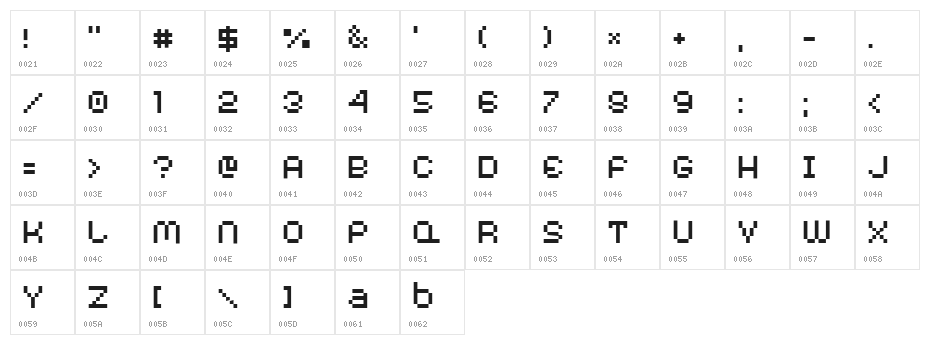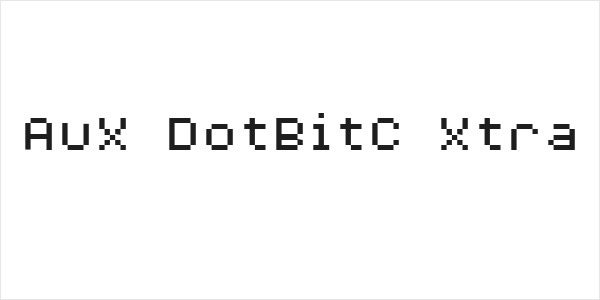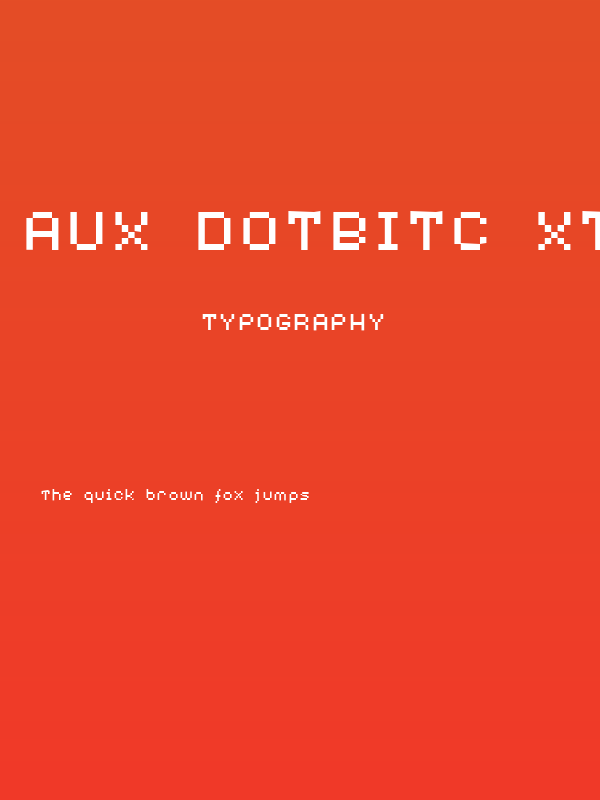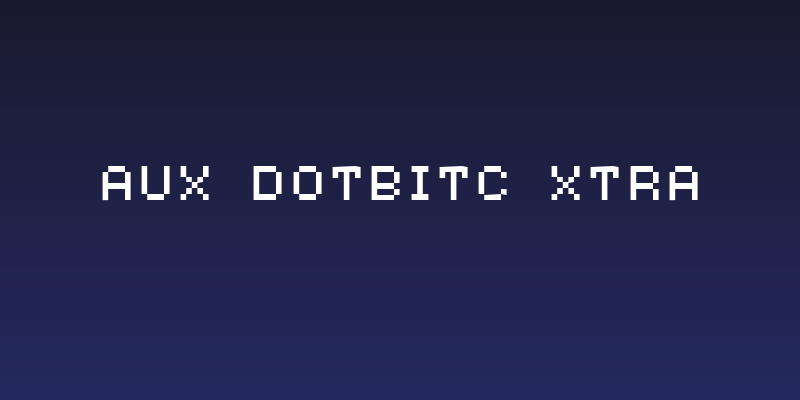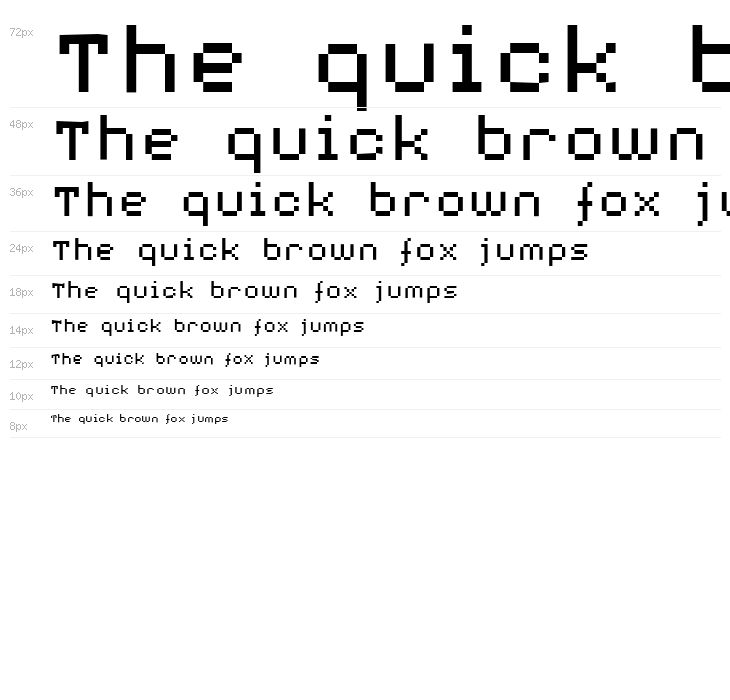
AuX DotBitC Xtra Font
AuX DotBitC Xtra Description
This font features a pixelated, blocky design reminiscent of early digital displays and retro video games. Each character is constructed with a grid-like pattern, giving it a distinctly digital and geometric appearance. The uniformity and simplicity of the design make it highly legible, even at smaller sizes. The uppercase and lowercase letters maintain a consistent style, with minimal variation in stroke width, contributing to a cohesive and structured look. Numbers and special characters follow the same pixelated theme, ensuring a seamless integration across all text elements. This font's nostalgic aesthetic is perfect for projects that aim to evoke a sense of retro digital culture.
| Overall Style | Retro, Digital |
| Use Case | Headlines, Logos, Digital Art |
| Proposed Projects | Ideal for video game design, digital art projects, retro-themed websites, and tech-related branding. |